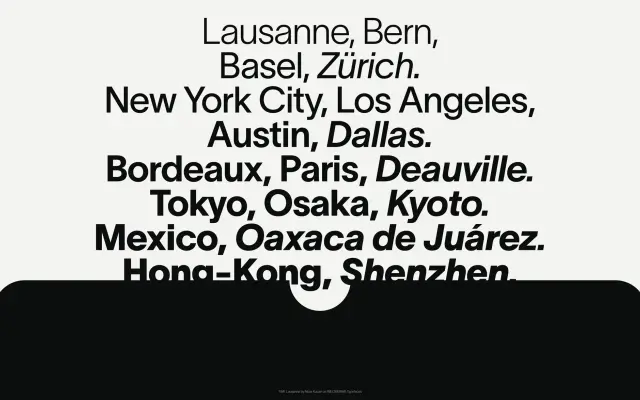
TWK Lausanne
A Swiss grotesque by Nizar Kazan spanning twenty weights from hairline to ultra-heavy, with a restrained character that has made it a fixture in fashion and cultural publishing.
Designed by Swiss designer Nizar Kazan for WELTKERN, TWK Lausanne runs an unusually fine-grained weight scale from 50 to 1000, each with a matching italic, giving designers granular control across a single family. Its neutrality and precision have attracted an array of high-profile clients spanning fashion houses such as Bottega Veneta and Loewe, institutions like the Museum of Modern Arts, and technology brands including Apple TV+. The name refers to the Swiss city of Lausanne, though the foundry cheekily note it is more visible in New York than in its namesake.
A Swiss grotesque with a clean, neutral character typical of the Geneva/Lausanne tradition, designed to function across an exceptionally wide weight range from 50 to 1000.